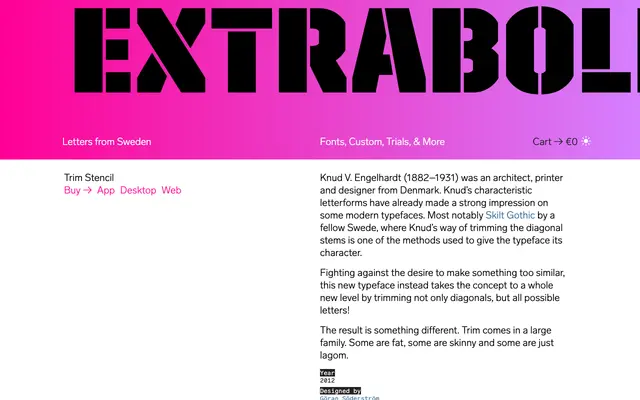
Trim Stencil
A stencil display face by Göran Söderström that takes Knud V. Engelhardt's trimmed-stem letterform concept and applies it across every possible character.
Inspired by Danish architect and designer Knud V. Engelhardt, whose trimmed diagonal stems had already influenced typefaces such as Skilt Gothic, Söderström extended the idea further by applying the trimming treatment to all letters, not only diagonals. The result is a single ExtraBold stencil weight with broad Latin character support including extended diacritics and special characters. Part of the wider Trim family, which spans a range of weights from heavy to narrow.
A stencil display typeface built around the concept of trimming stems and diagonals, derived from the geometric letterform approach of Danish designer Knud V. Engelhardt. Its single-weight, uppercase-focused construction places it firmly in the display category.